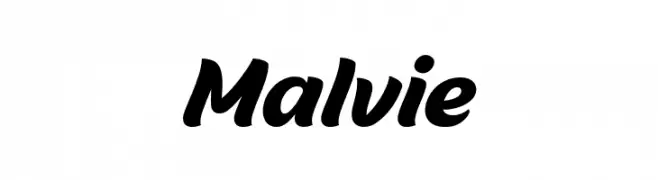
A lively and dynamic script font with elegant loops and playful bounce.
A bold, italicized font with smooth curves and a strong presence.
A playful and dynamic handwritten font with fluid, slightly slanted letterforms.
A bold and expressive script font with dynamic curves and elegant swirls.